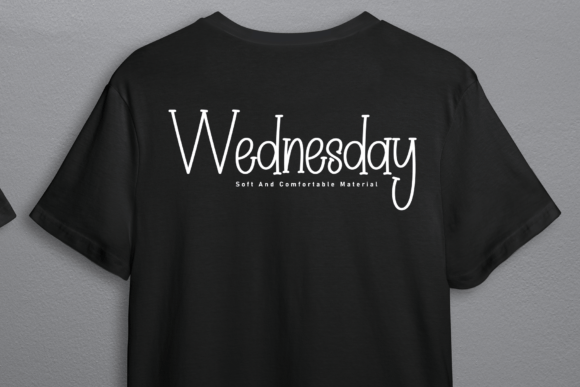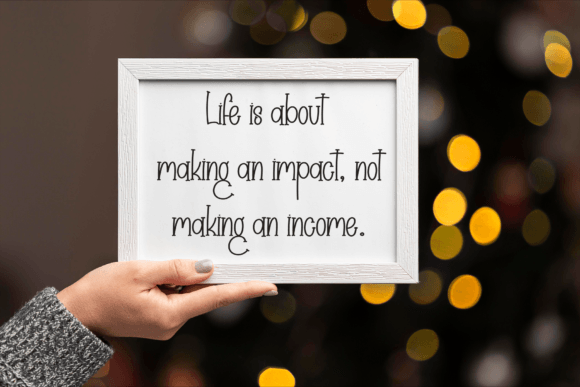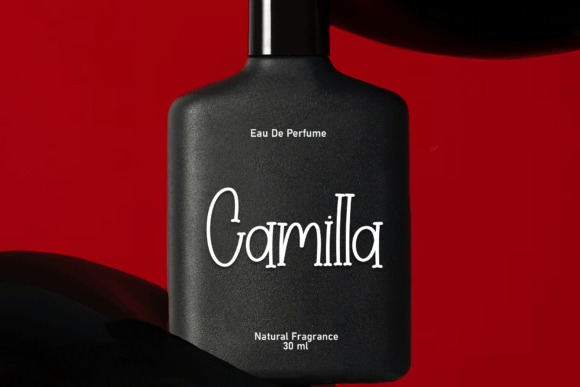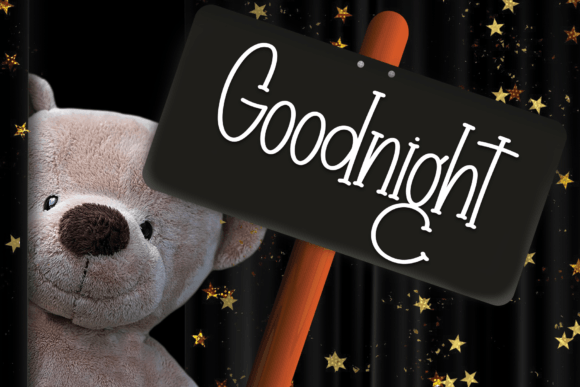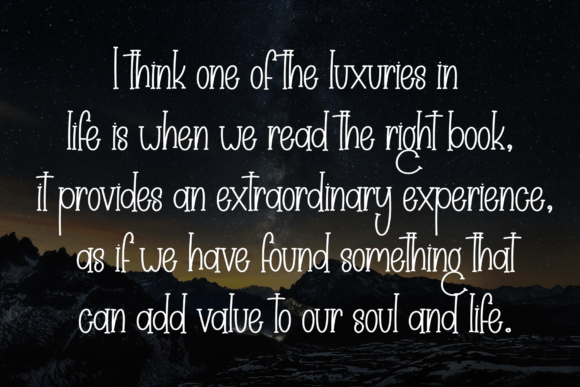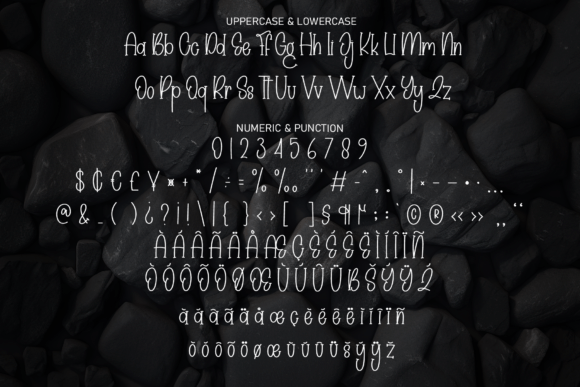
The Designer’s Delight: Getting to Know Blackstone Font
I still remember the time I was working on a whimsical craft project, pouring my heart into a handmade card for a friend’s birthday. I had all the materials ready – colorful papers, glue, scissors, and a dash of creativity. But as I sat there, staring at my design, something felt off. The text, in a bland, generic font, completely killed the vibe I was going for. I scoured the internet for the perfect font, and that’s when I stumbled upon Blackstone. This playful handwritten font with charming serif style instantly captured my heart, and I knew I had found the perfect fit for my project.
An Honest Review of Blackstone Font
What I Love About Blackstone ✨
• ✅ Its fun and bouncy letters add a friendly touch to any text, making it perfect for casual and creative designs.
• ✅ The charming serif style gives it a unique and distinctive look that sets it apart from other fonts.
• ✅ It’s incredibly versatile and can be used for a wide range of projects, from handmade crafts to digital designs.
• ⚠️ Some letters may appear a bit too condensed, which can affect readability in certain contexts.
• ⚠️ It may not be the best choice for very formal or professional designs, as its playful nature might not be suitable for those types of projects.
4. Experiment with OpenType features, such as stylistic alternates, to add more personality to your text.
The Story Behind Blackstone Font
Blackstone font was designed with the intention of capturing the playful spirit of handwritten text. Its creator, a talented type designer, wanted to craft a font that would bring a smile to people’s faces. Inspired by classic serif fonts and modern script styles, Blackstone was born – a unique blend of fun and elegance.
Q: What type of projects is Blackstone best suited for?
A: Blackstone is perfect for casual and creative designs, such as handmade crafts, digital art, and social media graphics.
Q: Is Blackstone a difficult font to read?
A: Blackstone is generally easy to read, but some letters may appear a bit condensed, which can affect readability in certain contexts.